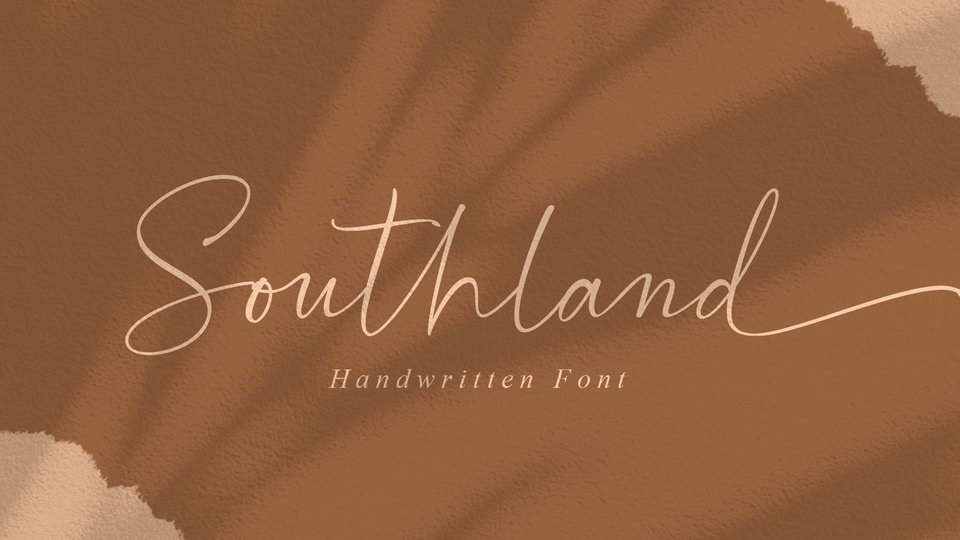
Feb 10, 2025Script & HandwrittenSouthland Script Southland is a handmade calligraphy font that is made with a touch of love in every character.Southland font is perfect for logos, branding, business cards, watermarks, posters and more. Font DetailsDesigned by: MJB LettersWebsiteLicense: Free for personal use Download Southland ScriptFile size: 34.36 KBCreated: February 16, 2025Updated: February 16, 2025 Download Explore similar fonts Arthur Meridian Font Autograph Westhelin Font Tender Natural Font Melathea Font Aesthetic Shine Font Maruka Castelio Font # Casual# Cursive# Elegant# Feminine# Handwriting# Signature# Thin# Wedding More fonts by MJB LettersSouthelia FontNoorlita ScriptLove History FontLa Beauties FontBelisha FontBallimore FontWhole FontKastella Script